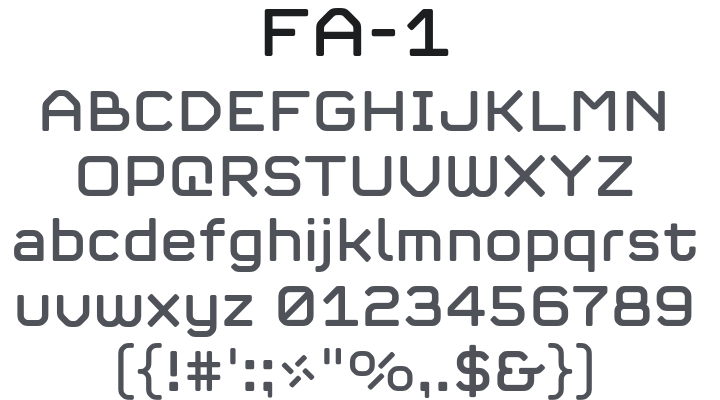
FA-1 Font
by dot colon
FA-1 Font
About FA-1
FA-1 is a typeface created by extracting and reconstructing the sci-fi elements found in the previously released F5.6.
While the original F5.6 blended the design of standard machine-engraving typefaces with the linear styles often seen in classic sci-fi works, I had already incorporated the machine-engraving elements into the earlier F1.8 release; consequently, I isolated the remaining sci-fi elements to develop this new typeface.
The fundamental design draws inspiration from the typeface used in the OVA "Combat Fairy Yukikaze". While capturing the atmosphere of the original, I designed each character from scratch with a focus on readability.